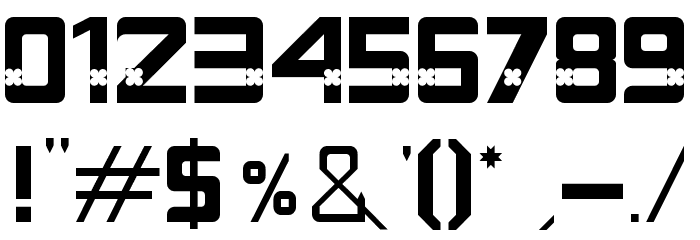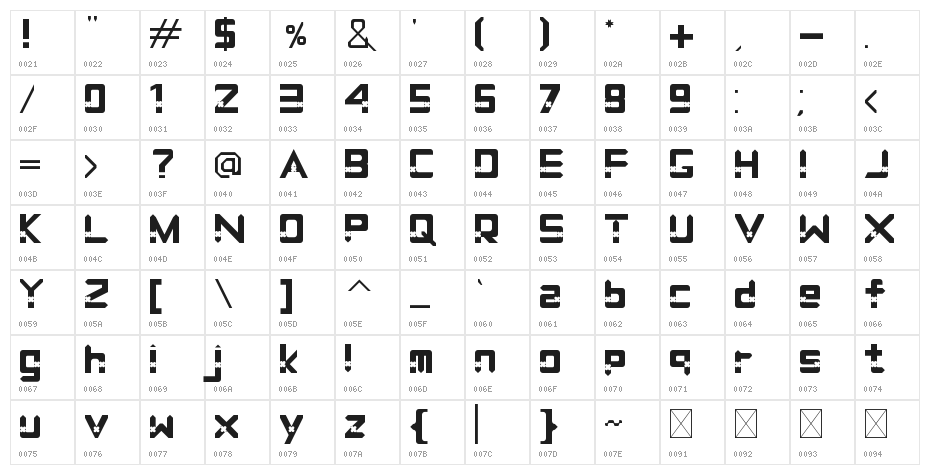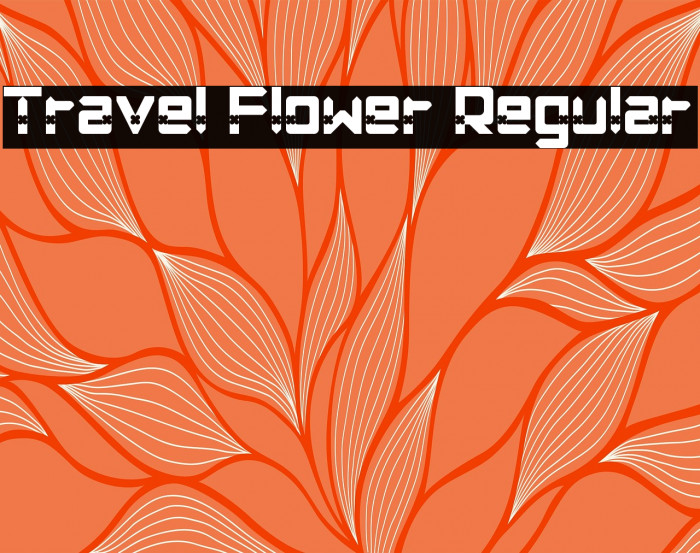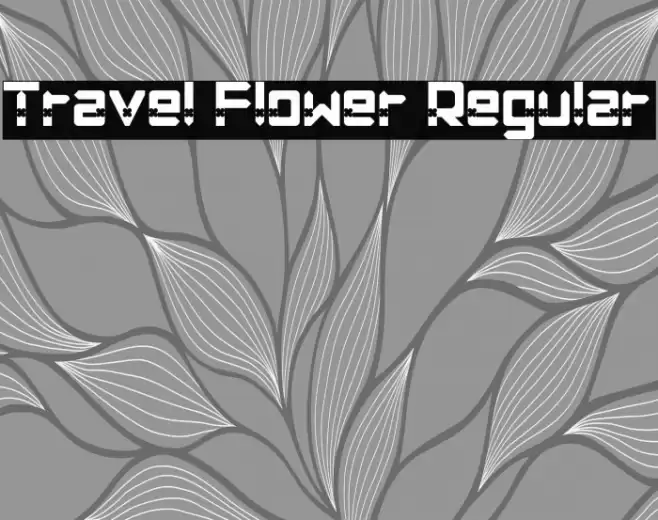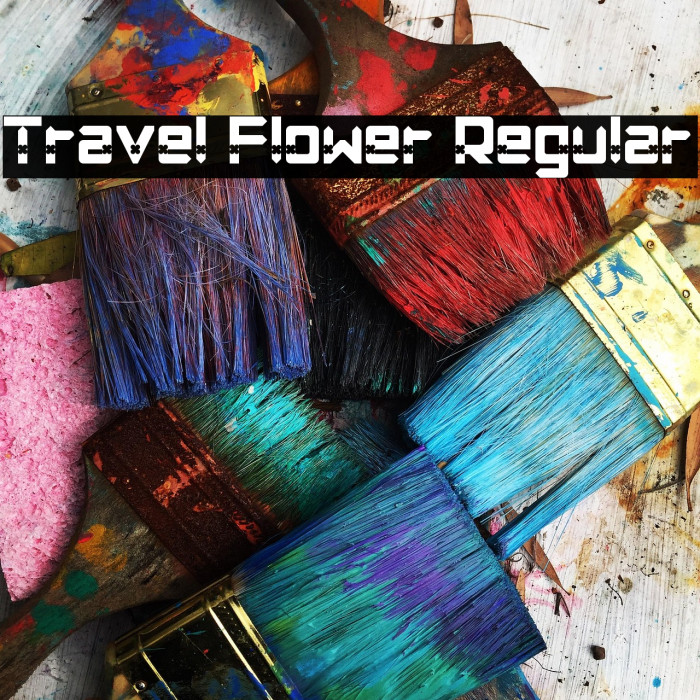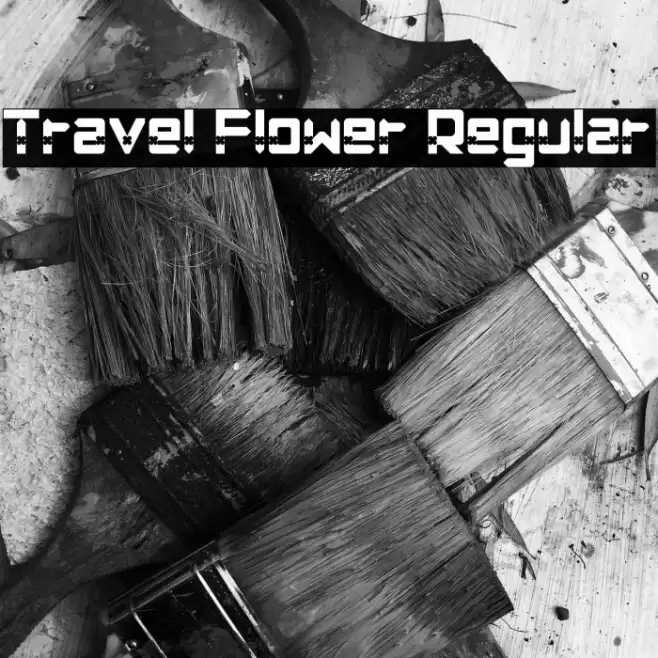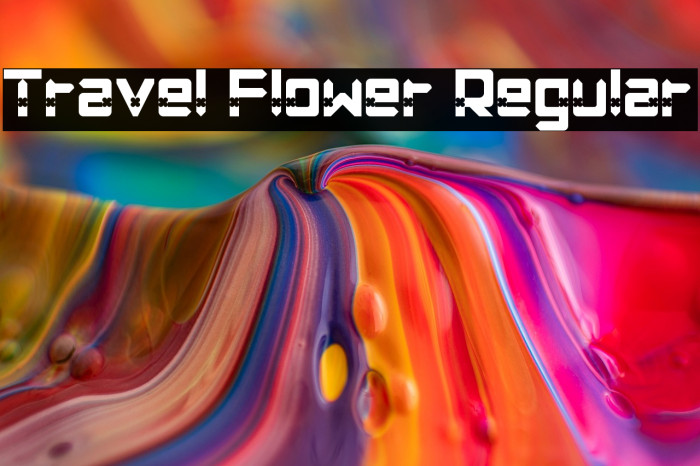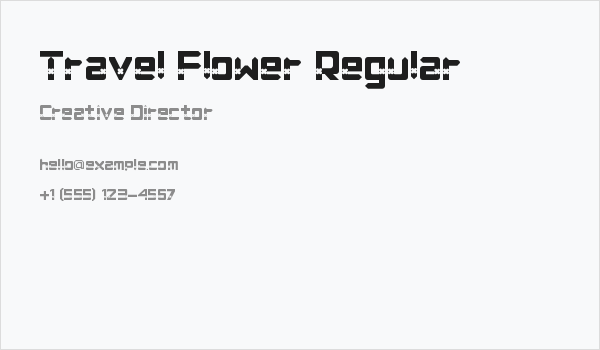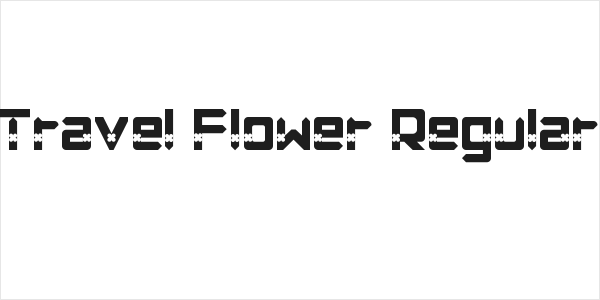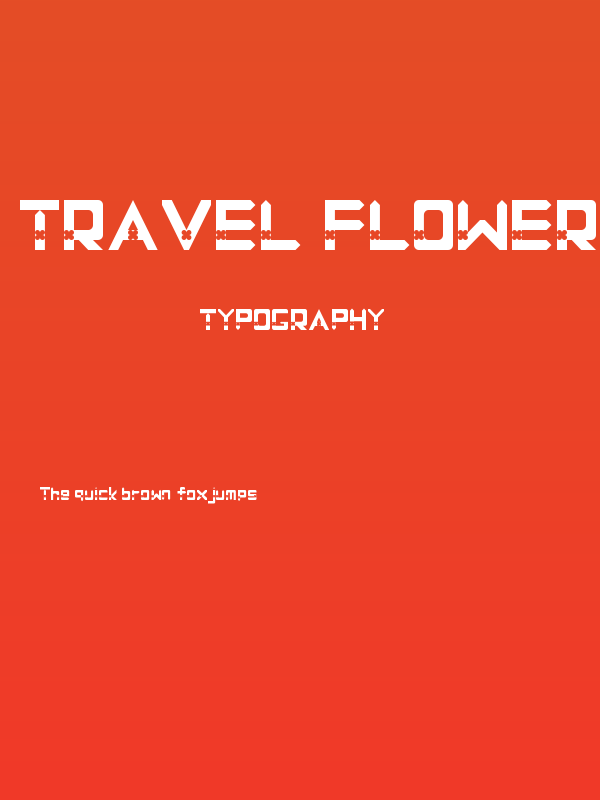
Travel Flower Regular Font
| Proiecte propuse | Ideal for wedding invitations, event posters, branding for floral shops, or any project needing a decorative and artistic touch. |